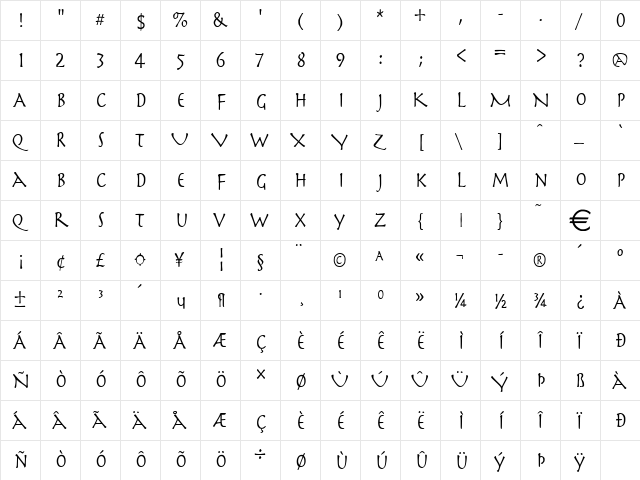
MythologyCondensed Normal
Design Context for MythologyCondensed Typeface
MythologyCondensed takes a measured approach to typography — its balanced proportions and neutral character make it a reliable workhorse for both digital and print work. The condensed width makes it efficient for tight spaces without sacrificing legibility.